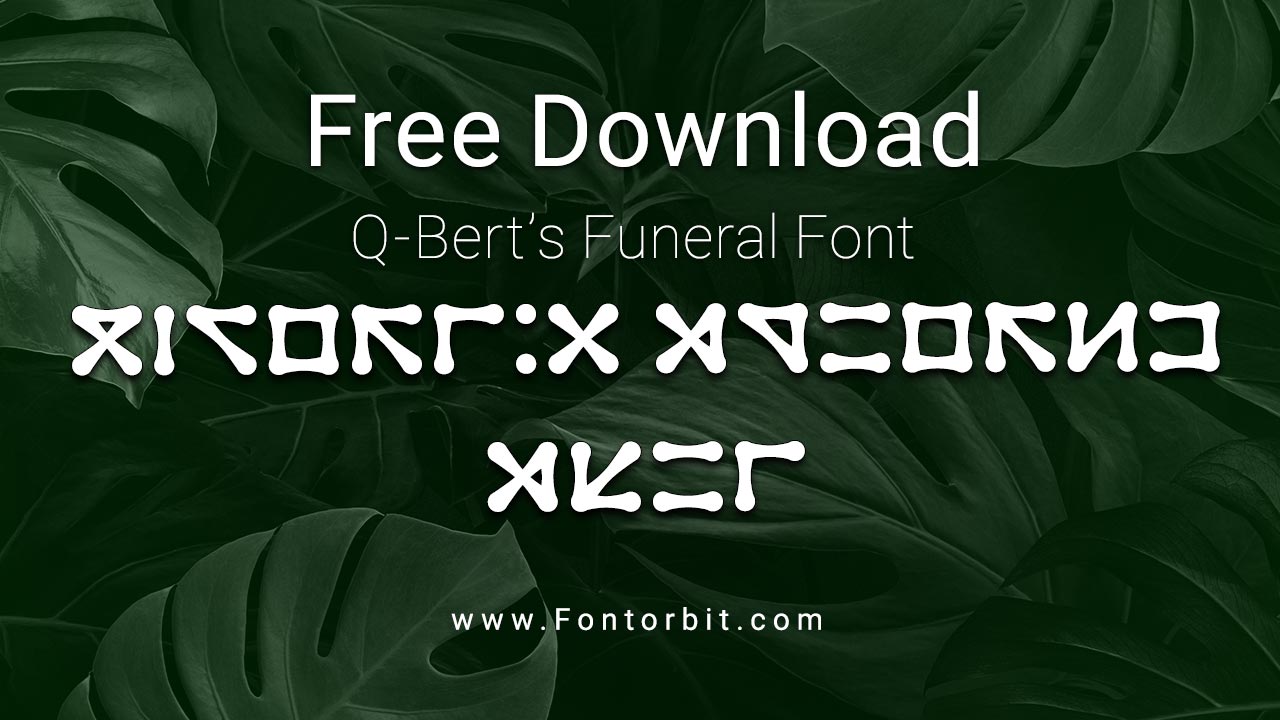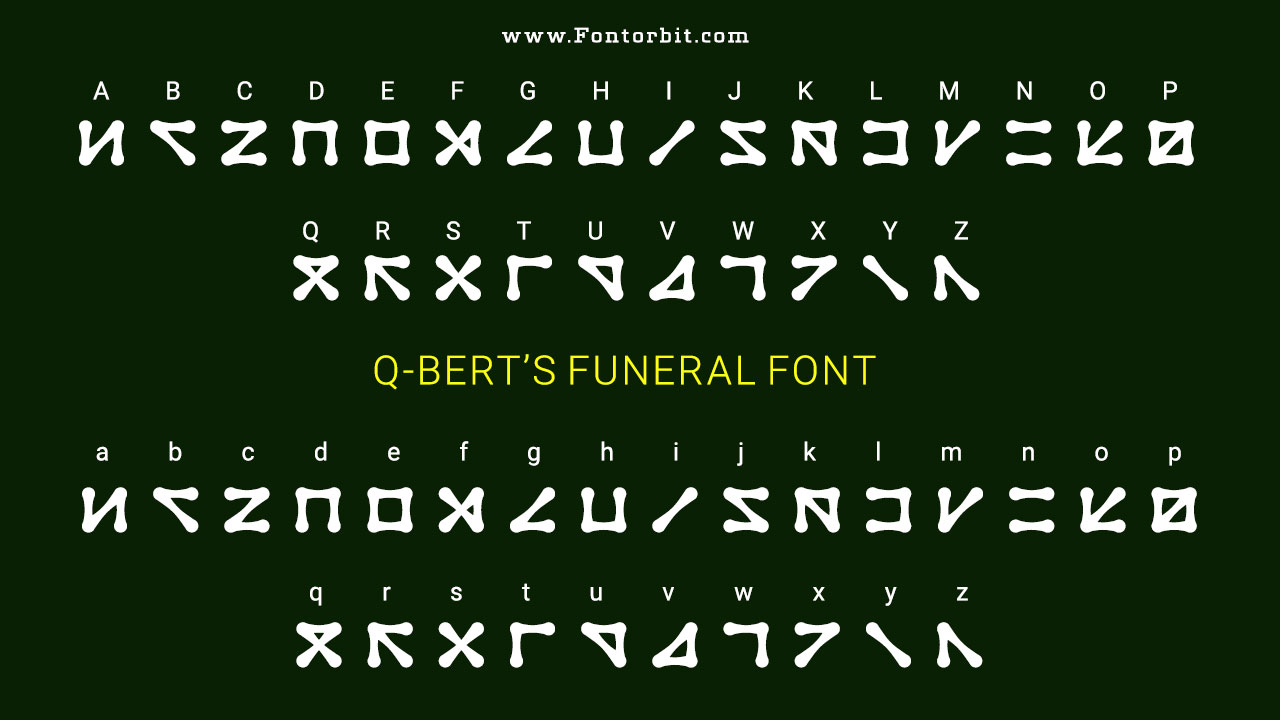
Q-Bert’s Funeral is a distinctive and unconventional font designed by Vic Fieger, perfect for playful and bold design projects. As part of the dingbats style, this typeface offers a unique set of letterforms that immediately capture attention and evoke a sense of creativity. It has become popular among designers looking to make a statement with their typography choices.
Q-Bert’s Funeral Font stands out for its originality, making it best suited for creative and artistic endeavors. This typeface is particularly effective for display use, such as titles, posters, and branding materials.
- Flyers
- Book Titles
- Album Covers
- Website Headers
- Creative Designs
- Artistic Branding Projects
Q-Bert’s Funeral excels in delivering a sense of individuality and boldness to any project. Its unconventional style makes it a go-to choice for designers who want their work to stand out and convey a sense of artistic freedom. Whether for digital or print media, Q-Bert’s Funeral ensures that your message is delivered with creativity and impact.
People frequently use Q-Bert’s Funeral in various creative and artistic projects. It is a favorite for designers who need a typeface that commands attention with its non-traditional letterforms. This font is often found in settings that benefit from its bold style, such as music album covers, event posters, and avant-garde branding projects.
Q-Bert’s Funeral Font is a striking and creative typeface that brings a sense of uniqueness to any design project. Its edgy, unconventional design is perfect for artistic and non-traditional applications, making it a valuable asset for designers looking to inject personality into their work.
Q-Bert’s Funeral features unconventional, edgy letterforms with a playful and artistic style. It is characterized by its unique design, making it ideal for creative and bold display text.